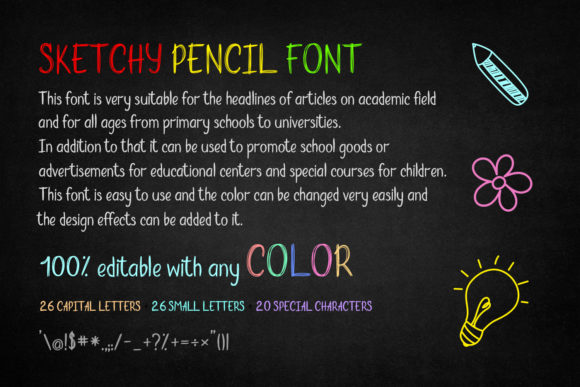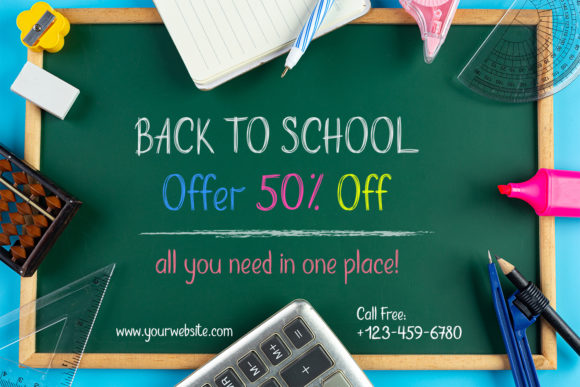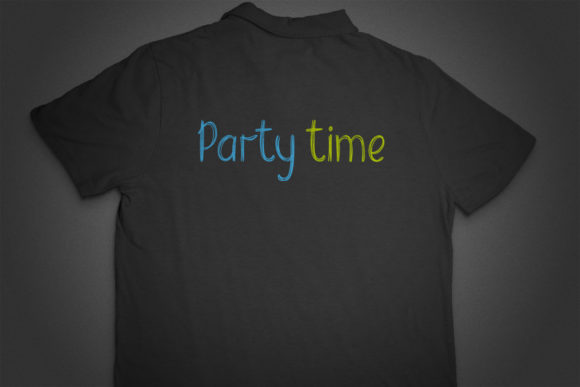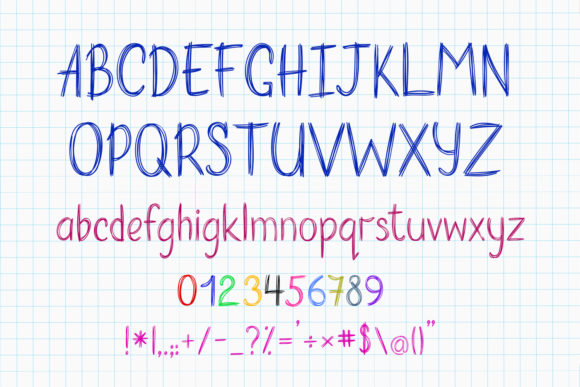
Sketchy Pencil Font
Sketchy Pencil is a great sketch handwritten font. It’s suitable for chalk writing and it’s the perfect font for school-themed projects.